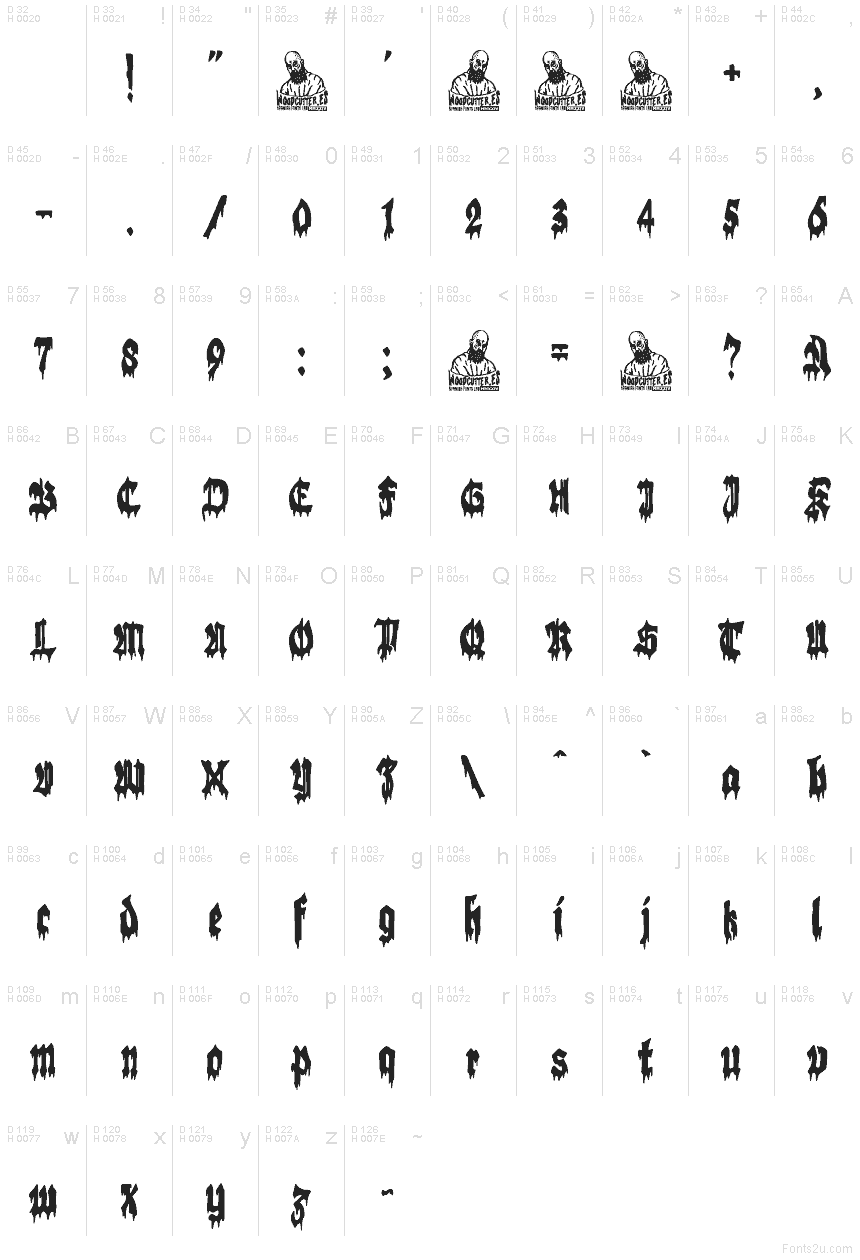
German Apocalypse
German Apocalypse font by Woodcutter is a condensed, Gothic-inspired display typeface with ornate details and intense mood. Its sharp elements and dramatic style evoke historical echoes, creating a foreboding and scary atmosphere.